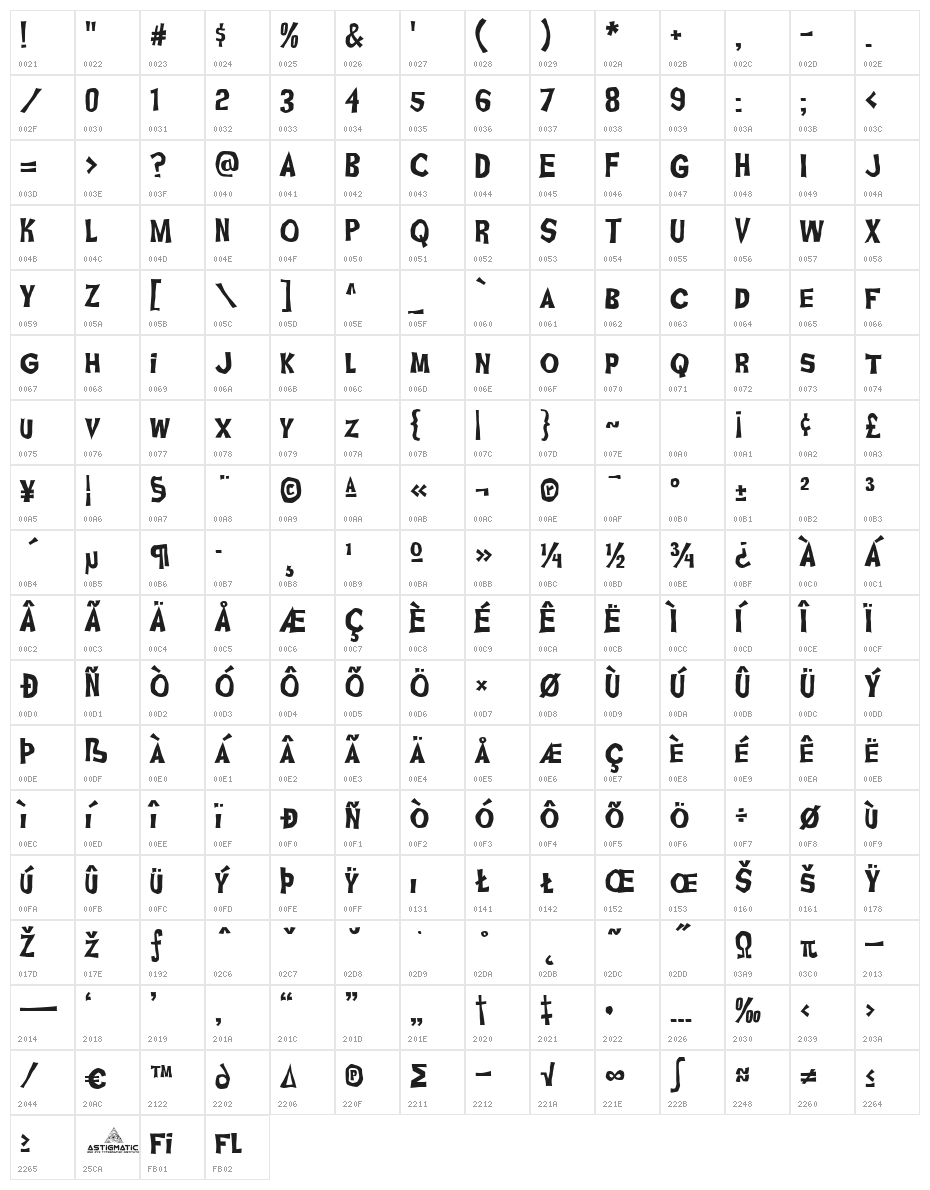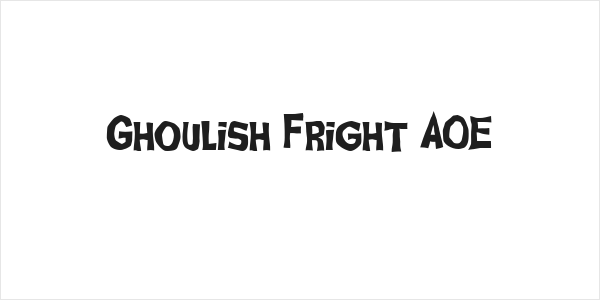
Ghoulish Fright AOE Font
Ghoulish Fright AOE Description
This font features a spooky and playful design, characterized by its jagged and irregular letterforms that evoke a sense of mystery and fun. The uppercase and lowercase letters maintain a consistent style, with exaggerated angles and uneven strokes that give it a hand-drawn appearance. The numbers and special characters follow the same whimsical aesthetic, making it ideal for Halloween-themed projects or anything requiring a touch of the eerie and unusual. Its bold and eye-catching nature ensures it stands out in any design context.
| Proposed Projects | Ideal for Halloween invitations, themed posters, horror movie titles, and spooky event flyers. |